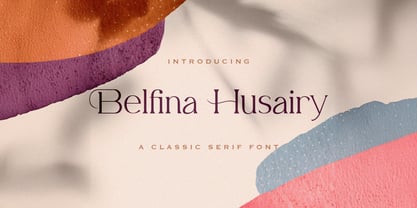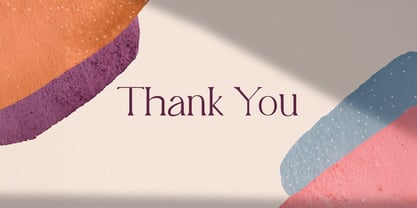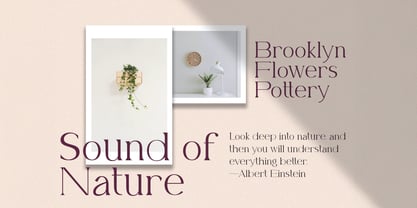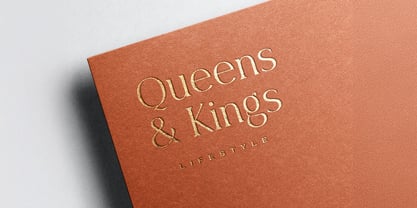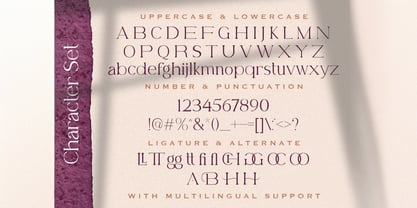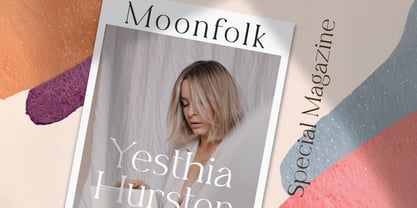
Belfina Husairy
by Stringlabs Creative Studio
The Belfina Husairy Font Family was designed by Virgiawan Listanto and published by Stringlabs Creative Studio. Belfina Husairy contains 1 styles. More about this family
Belfina Husairy is an elegant and timeless classic serif font that exudes sophistication and refinement. With its clean lines, graceful curves, and traditional serif detailing, it’s perfect for high-end branding, editorial designs, and any project that calls for a touch of class.
Designers: Virgiawan Listanto
Foundry: Stringlabs Creative Studio